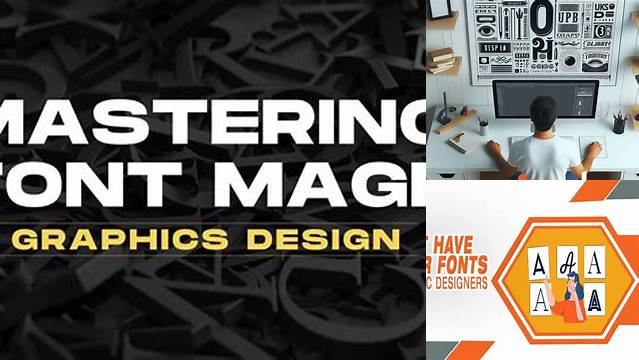
Mastering Fonts In Graphic Design
Hey there, design enthusiasts! Ever wondered what truly makes a visual piece pop, or why some brands just feel right? Well, a huge, often underestimated, part of that magic comes down to something we use every single day: fonts. Yeah, I'm talking about those super cool letterforms that carry our messages, evoke emotions, and basically make up the very fabric of visual communication. Diving into the world of fonts in graphic design isn't just about picking something pretty; it's about understanding a language, a psychology, and an art form all rolled into one. So grab a coffee, guys, because we're about to embark on an epic journey to unlock the secrets of typography and how it utterly transforms your designs. This isn't just a guide; it's your new best friend for crafting truly impactful visual stories. Let's get started!
Understanding the Essence of Fonts in Graphic Design
When we talk about fonts in graphic design, we're not just discussing a decorative element; we're delving into the very essence of how messages are perceived, digested, and remembered. Imagine trying to read an important legal document set in a playful, bubbly font – it just wouldn't feel right, would it? That's because fonts carry an immense amount of non-verbal information. They set the tone, establish credibility, and guide the reader's eye, often subconsciously. Think of it this way: if your design is a conversation, the font is your voice, determining whether you sound serious, whimsical, professional, or rebellious. For example, a sleek sans-serif might convey modernity and efficiency, perfect for a tech startup, while a classic serif could evoke tradition and trust, ideal for a law firm or a university. Understanding this fundamental role is the first step to truly mastering your design output. The right font doesn't just make text legible; it makes it relatable and memorable.
Furthermore, fonts in graphic design are pivotal in creating visual hierarchy, which is crucial for effective communication. This means using different font styles, sizes, weights, and colors to guide the viewer's attention to the most important information first, then secondary, and so on. Without a well-defined hierarchy, a page can feel chaotic and overwhelming, leading to reader fatigue and disinterest. It's about leading the eye through the content in a logical and pleasing manner, making sure the key takeaways are highlighted without shouting. Designers spend countless hours finessing these details because they know that even the slightest adjustment in font choice or spacing can drastically alter the user's experience and the message's impact. So, next time you're scrolling through a website or flipping through a magazine, pay attention to how the fonts are working – you'll quickly realize they're doing a lot more than just holding words together; they're orchestrating the entire visual symphony.
The Core Role of Typography in Visual Communication
Typography, which is the art and technique of arranging type to make written language legible, readable, and appealing when displayed, is an absolutely core element in any form of visual communication. When we discuss fonts in graphic design, we're really touching upon the broader discipline of typography, which encompasses everything from choosing the perfect typeface to setting the line height, tracking, kerning, and even the color of the text. It's not just about picking a font from a dropdown menu; it's about understanding how each character interacts with its neighbors, how lines of text flow together, and how entire blocks of copy contribute to the overall aesthetic and message of a design. A poorly chosen font or an ill-considered typographic layout can completely derail an otherwise brilliant concept, making a professional piece look amateurish or an engaging message feel tedious to read. This is why mastering typography is non-negotiable for any aspiring or professional graphic designer.
Think about it this way: your brand's voice, your campaign's mood, or your website's usability are all heavily influenced, if not defined, by your typographic choices. Are you aiming for a playful, youthful vibe? A rounded, informal sans-serif might be your go-to. Need to convey elegance and sophistication? A classic serif with refined curves could be the answer. The power of fonts in graphic design lies in their ability to evoke emotions and associations before a single word is even read. This emotional resonance is what makes typography such a potent tool in marketing, branding, and user experience design. Furthermore, consistent typography across all your brand assets builds recognition and trust. When users encounter your brand, the familiar fonts act as visual anchors, reinforcing your identity and creating a cohesive, professional image. It's a silent communicator that speaks volumes about who you are and what you stand for, making it an indispensable part of any effective visual strategy.
Exploring Different Font Classifications: Serifs vs. Sans-Serifs
When you're diving deep into fonts in graphic design, one of the first and most fundamental distinctions you'll encounter is between serif and sans-serif fonts. These two broad classifications form the bedrock of almost all typographic choices and understanding their characteristics and common uses is absolutely essential for any designer. So, what's the big deal, guys? Let's break it down. Serif fonts are easily recognizable by the small decorative strokes, or